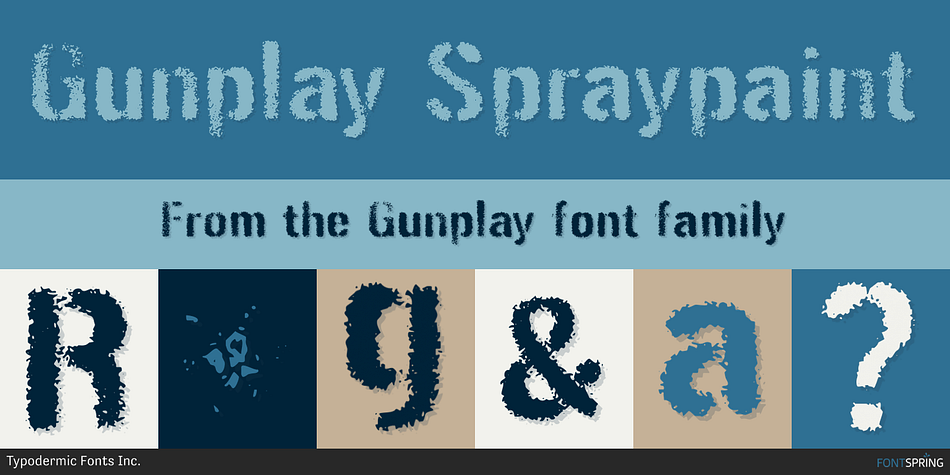
Gunplay Spraypaint
Gunplay is a grunge, stencil and display sans font family. This typeface has four styles and was published by Typodermic Fonts Inc.
Are you tired of weak, flimsy fonts that can’t handle the heat? Look no further than Gunplay—the tenacious stencil typeface that will make your message stand out from the pack.
Inspired by the iconic 1972 film The Getaway, Gunplay exudes a gritty, rugged aesthetic that demands attention. With three different special effect styles, this font brings a bold and authoritative voice to your designs.
Whether you’re looking to make a statement with a bold headline or add a touch of grit to your body text, Gunplay has got you covered. With its rugged design, this typeface can handle anything you throw its way.
So if you’re ready to take your designs to the next level, give Gunplay a try. With its tough voice of authority, this font is sure to leave a lasting impression.